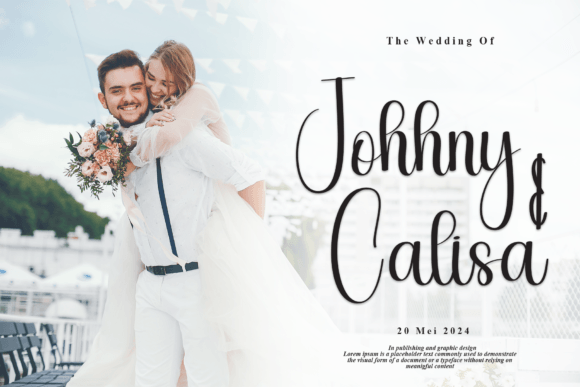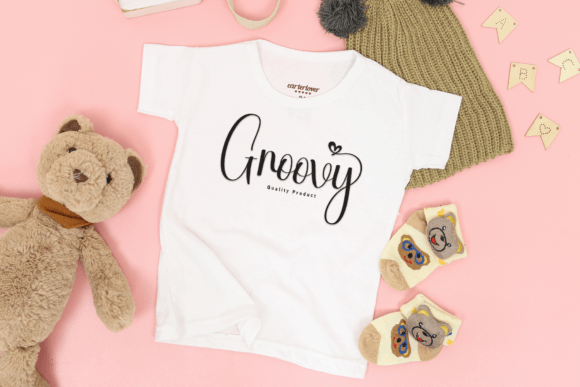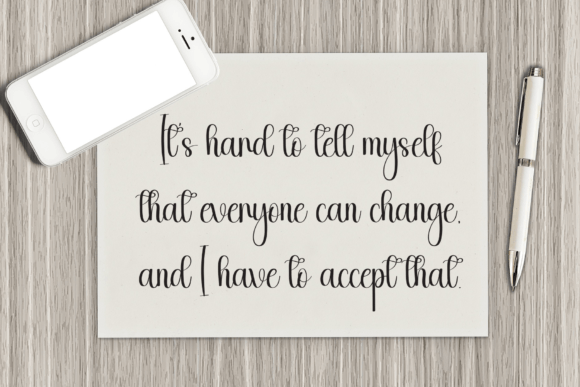
Big Baby Font
Introducing a charming, whimsical handwritten font that perfectly captures a sweet and friendly sentiment. Delightfully fun and oh-so-adorable, this font brings a whimsical touch to your wedding invites, greeting cards, and any other design you fancy. Unleash your creative side and imbue your designs with a casual, fun-filled flair with this playful font. So, light up your creations with a sprinkle of joyfulness and an inviting warmth that this unique font epitomizes.